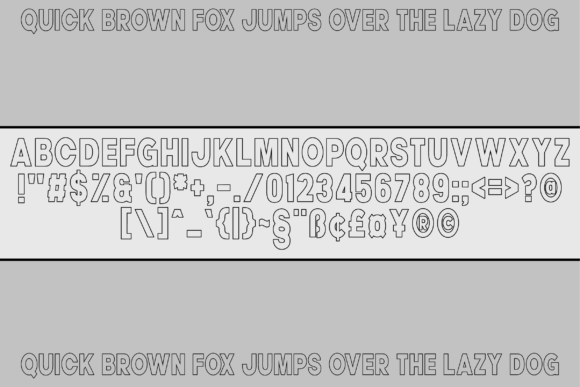
The Power of Bibold Outline: Elevate Your Designs with a Technical Edge
I’ll never forget the time I was working on a project for a tech startup, and I needed a font that would convey a sense of innovation and reliability. I spent hours scouring the internet for the perfect font, but nothing seemed quite right. That was until I stumbled upon Bibold Outline. This strong and structural font has been a game-changer for my designs, and I’m excited to share its awesomeness with you! 😊
An Honest Review of Bibold Outline
- ✨ Technical look and feel: Bibold Outline adds a level of sophistication and professionalism to any design project.
- ✅ Versatility: This font works well for a wide range of applications, from logos and branding to headings and titles.
- 💡 Instant recognition: The bold, outlined design makes it easy to grab attention and create visual interest.
While Bibold Outline is an excellent font, there are a few things to keep in mind:
- 🤔 Legibility at small sizes: As with many outline fonts, Bibold Outline can be tricky to read at very small sizes. Make sure to test it in your design to ensure it’s legible.
- ⚠️ Overuse: While Bibold Outline is a great font, using it too much can make your design feel overwhelming. Balance it with other fonts and design elements.
The Backstory of Bibold Outline
Bibold Outline was designed with the goal of creating a font that would convey a sense of innovation and reliability. The designer, who wishes to remain anonymous, drew inspiration from classic technical fonts and updated them with a modern twist. The result is a font that’s both timeless and cutting-edge.
| Font Name | Bibold Outline Font |
| Author | Huntype |
Q: What is the best use for Bibold Outline?
A: Bibold Outline is perfect for designs that require a technical or industrial look, such as logos, branding, and headings.
Q: Can I use Bibold Outline for body text?
A: While Bibold Outline is a great font, it’s not ideal for body text. Its bold, outlined design can be overwhelming for longer blocks of text.